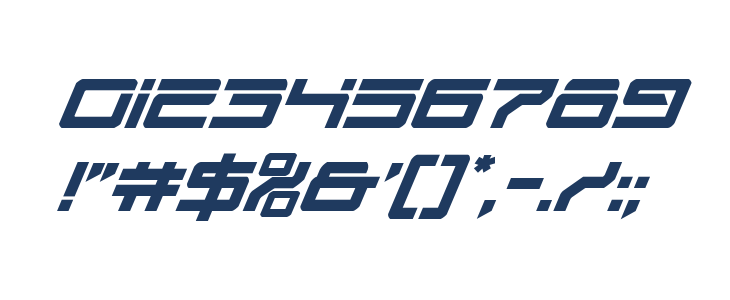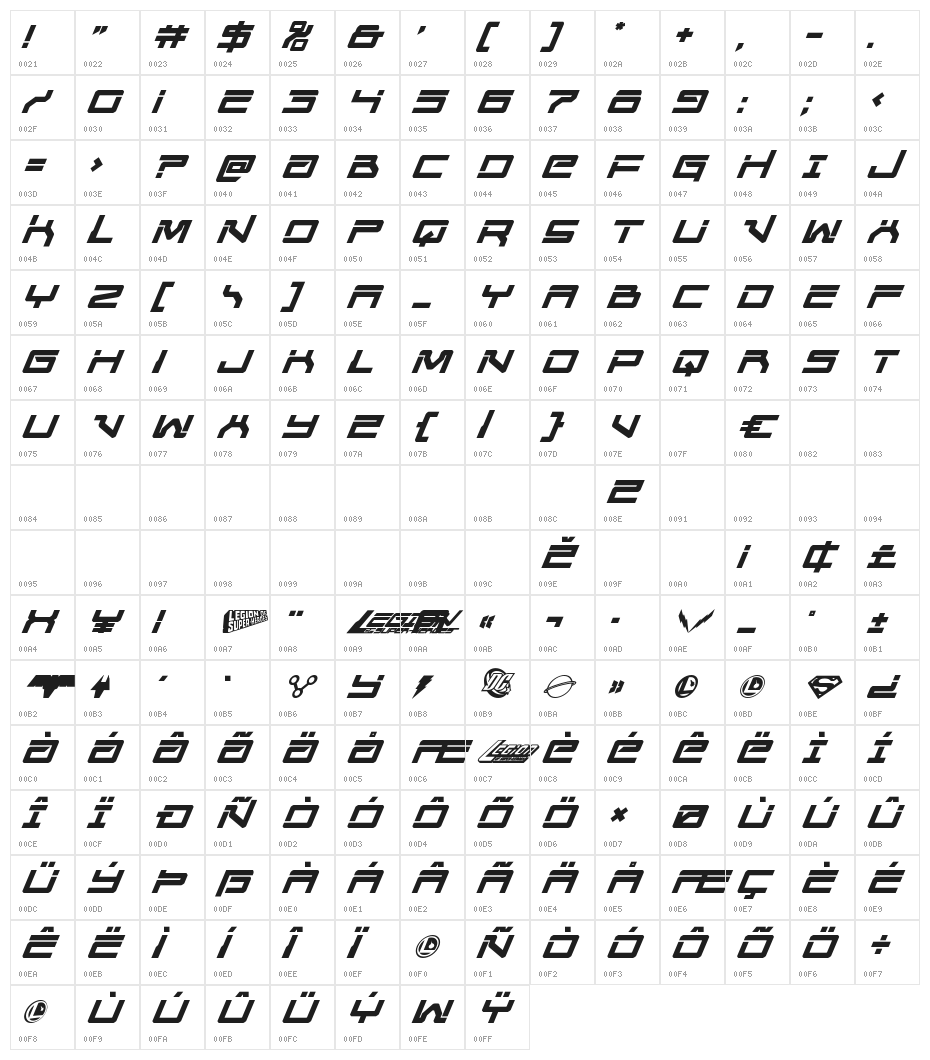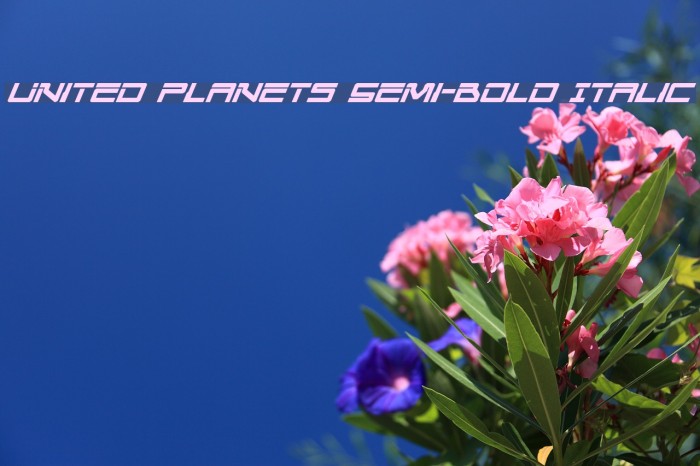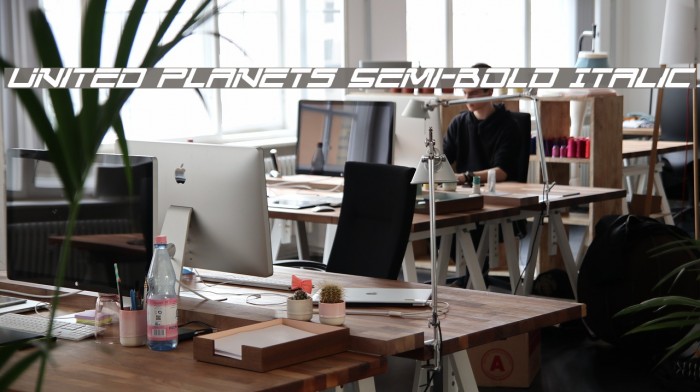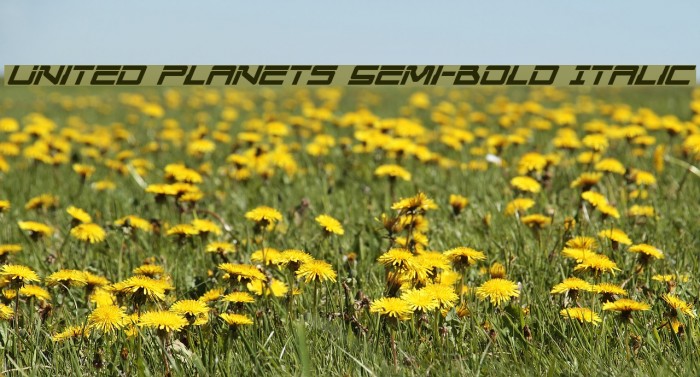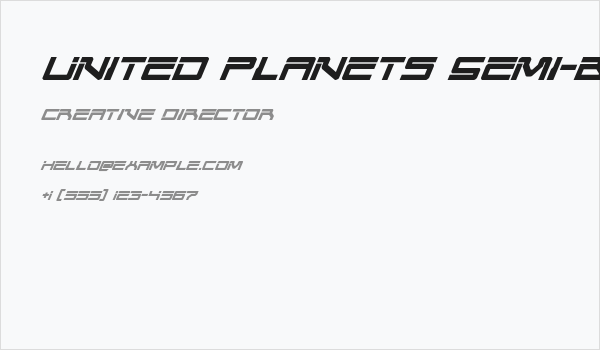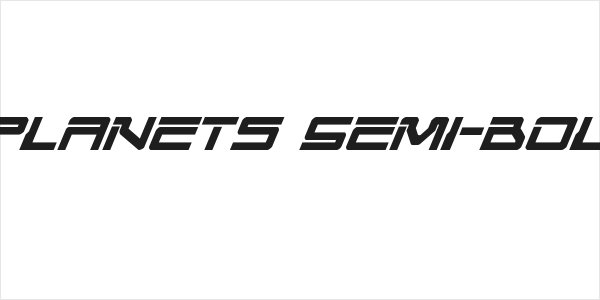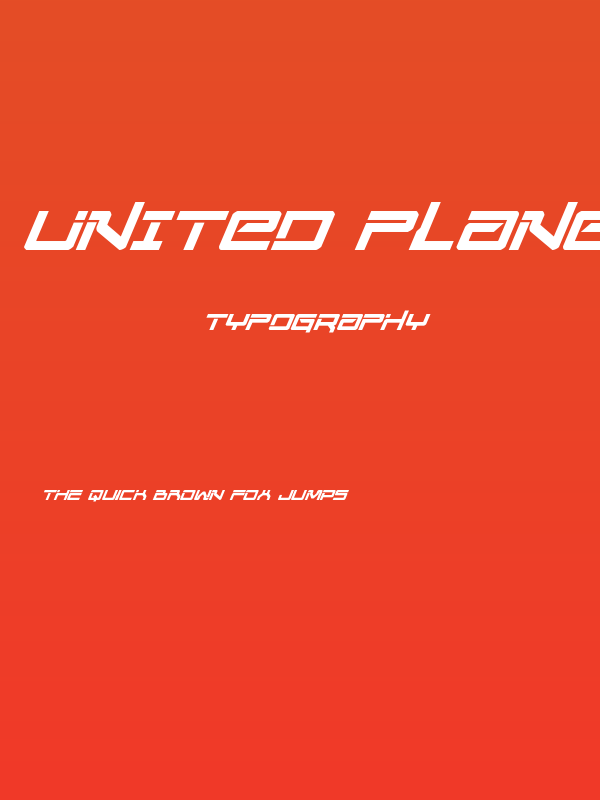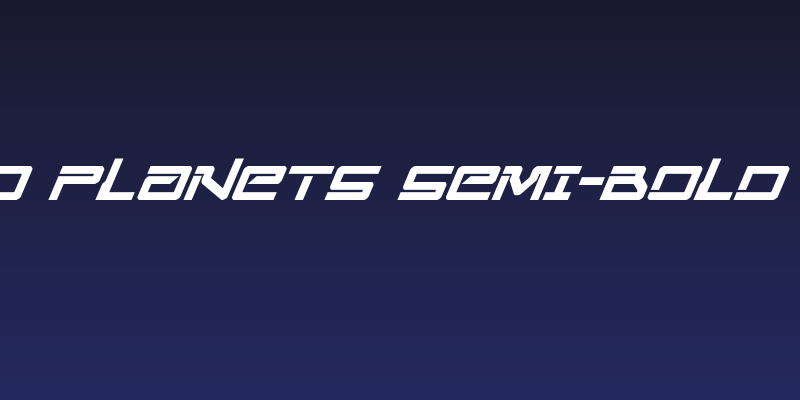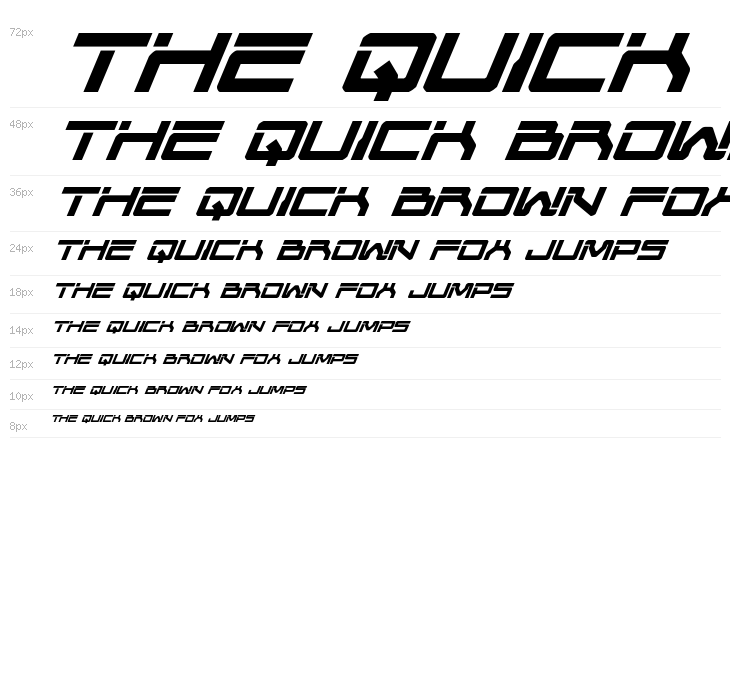
United Planets Semi-Bold Italic Font
United Planets Semi-Bold Italic Description
This font features a futuristic and angular design, characterized by sharp edges and a dynamic slant that gives it a sense of motion. The letters are bold and slightly condensed, with a consistent stroke width that maintains readability while adding a modern, tech-inspired aesthetic. The italic style enhances the forward-leaning appearance, making it suitable for projects that require a sense of speed or innovation. The numbers and special characters follow the same design principles, ensuring uniformity across all glyphs. This font is ideal for use in digital interfaces, gaming, and sci-fi themed projects.
Overall StyleFuturistic
Use CaseHeadlines, Logos, Digital Interfaces
Proposed ProjectsIdeal for digital interfaces, gaming, sci-fi themes, and tech branding.